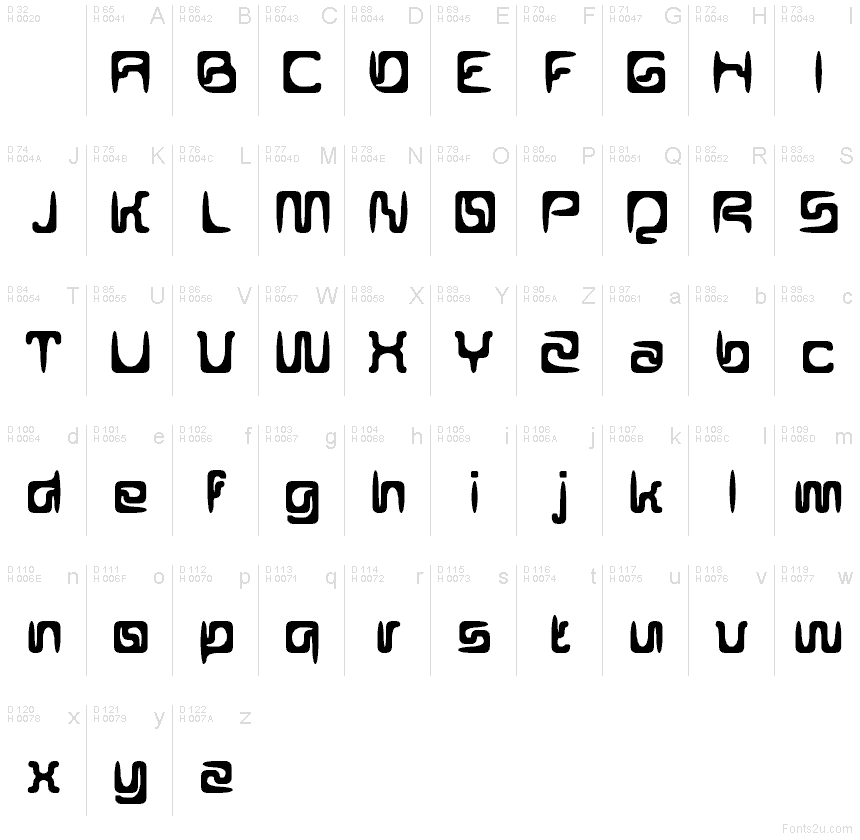
CS Sphinx Drawn font by Craft Supply Co. is a free hand-drawn display font. Built within the CS Sphinx family, it stands out with soft, gel-like curves, chunky rhythm, and inky edges that look slightly carved rather than machined. Letters swell and taper with an organic wobble, giving it a sci‑fi-meets-marker feel that reads loud at size yet stays friendly and tactile.
Using CS Sphinx Drawn, headlines get personality without turning messy. This free font shines on posters, game titles, festival branding, snack packaging, album covers, and social promos. The rounded forms cluster nicely, creating a buoyant flow across words. Pair it with a crisp geometric sans for body copy, and let CS Sphinx Drawn carry the top-line energy.